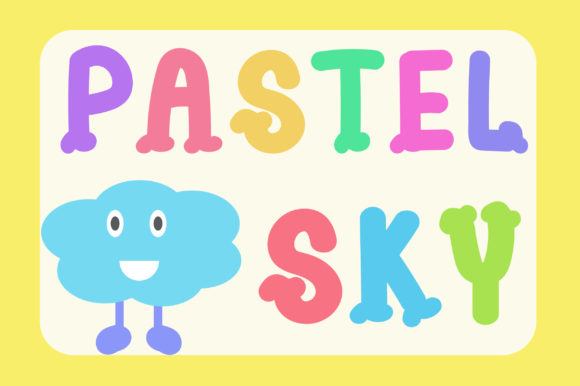
Journey into a world of enchanting aesthetics, where your creative visions take flight with Pastel Sky Font, the ultimate display font that captivates hearts and ignites imagination. Bold, yet irresistibly cute, Pastel Sky dances across your designs with a symphony of vibrant hues, adding a touch of playful magic to every letterform. Its versatile nature seamlessly adapts to a myriad of contexts, transforming your projects into captivating masterpieces.
Dive into the boundless possibilities of Pastel Sky and let your creativity soar. Picture your blog menu adorned with this font's whimsical charm, inviting readers to embark on a delightful journey through your written words. Design eye-catching social media posts that burst with personality, leaving an indelible impression on your audience. Craft logos and branding materials that radiate warmth and approachability, attracting customers like moths to a flame. The possibilities are endless, limited only by the depths of your imagination.
Pastel Sky is more than just a font; it's an artistic gateway to a world where enchantment reigns supreme. Its friendly and inviting aura creates an instant connection with your audience, fostering a sense of trust and engagement. Experience the transformative power of Pastel Sky as it elevates your designs to new heights of elegance and charm.
Don't settle for ordinary fonts that blend into the background. Embrace the captivating allure of Pastel Sky and watch as your creative endeavors blossom into breathtaking works of art. Its versatility knows no bounds, making it the perfect companion for a multitude of projects. Unleash your inner artist and let Pastel Sky ignite the flames of your imagination. Embrace the extraordinary and make a statement that resonates with your audience. The time is now to embark on a creative journey like no other.